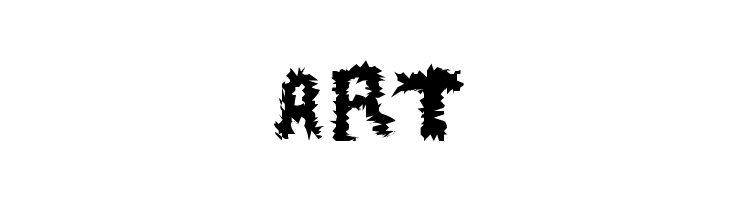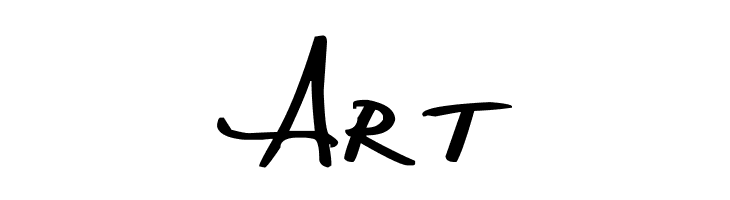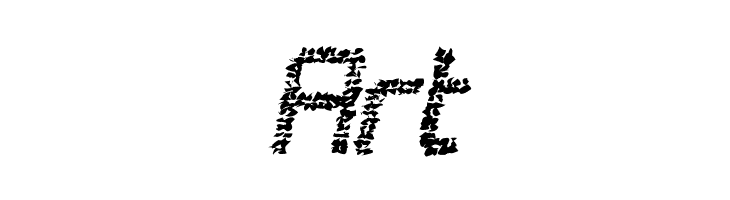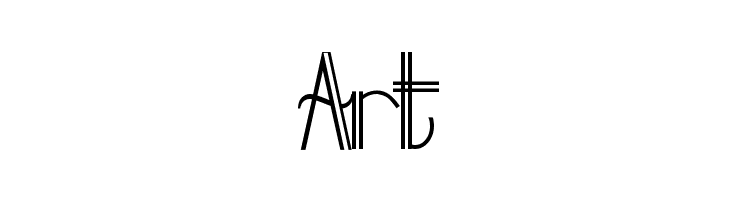
A bold, rounded font with a modern and clean design.
A jagged, horror-themed font with sharp, irregular strokes.
A casual, playful handwritten font with smooth, flowing curves and connected letters.
A fluid and dynamic handwritten font with smooth curves and natural elegance.
An ornate and decorative script font with intricate swirls and flourishes.
A playful, hand-drawn font with a sketch-like, three-dimensional appearance.
A textured, distressed font with a modern, graffiti-like style.